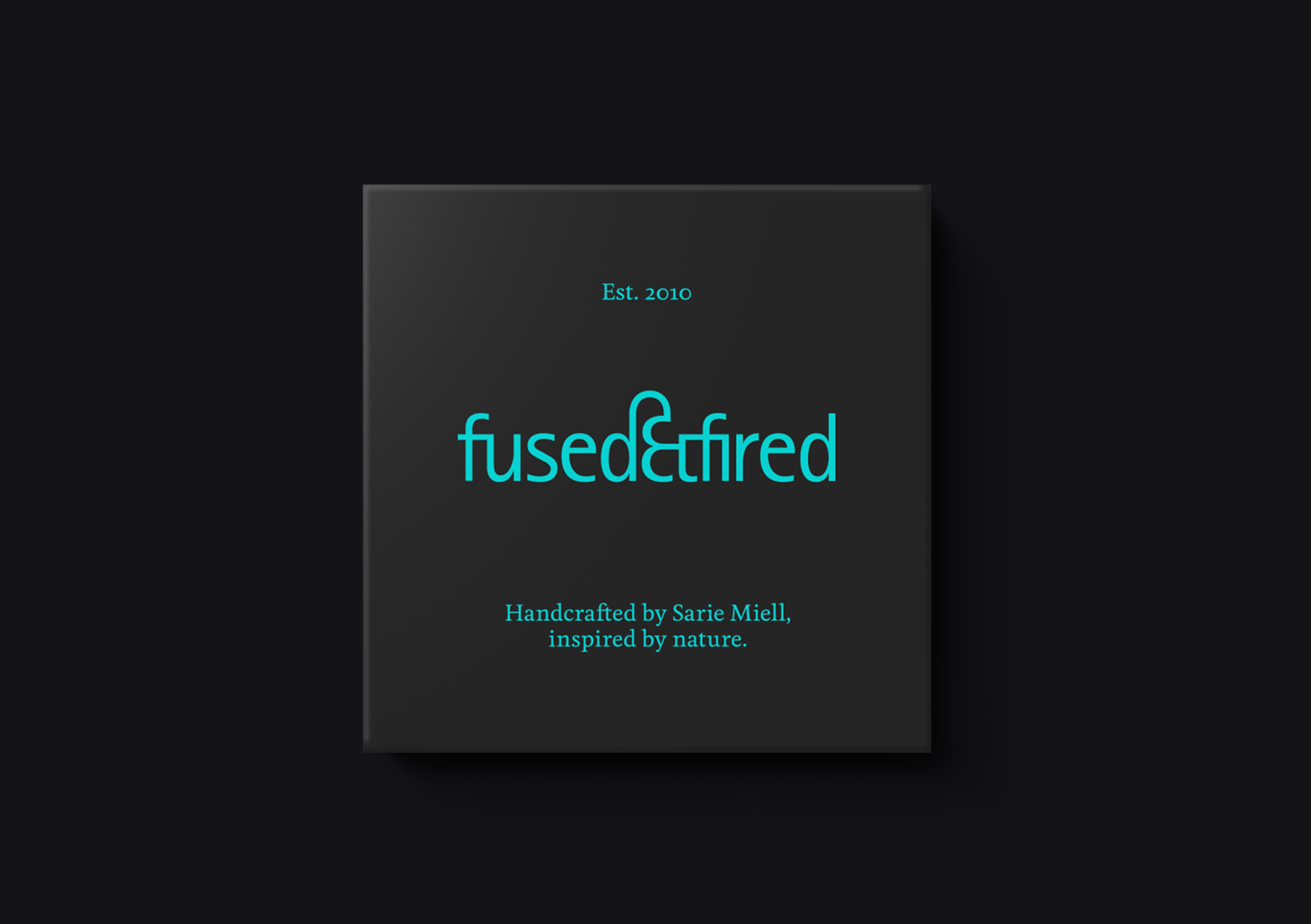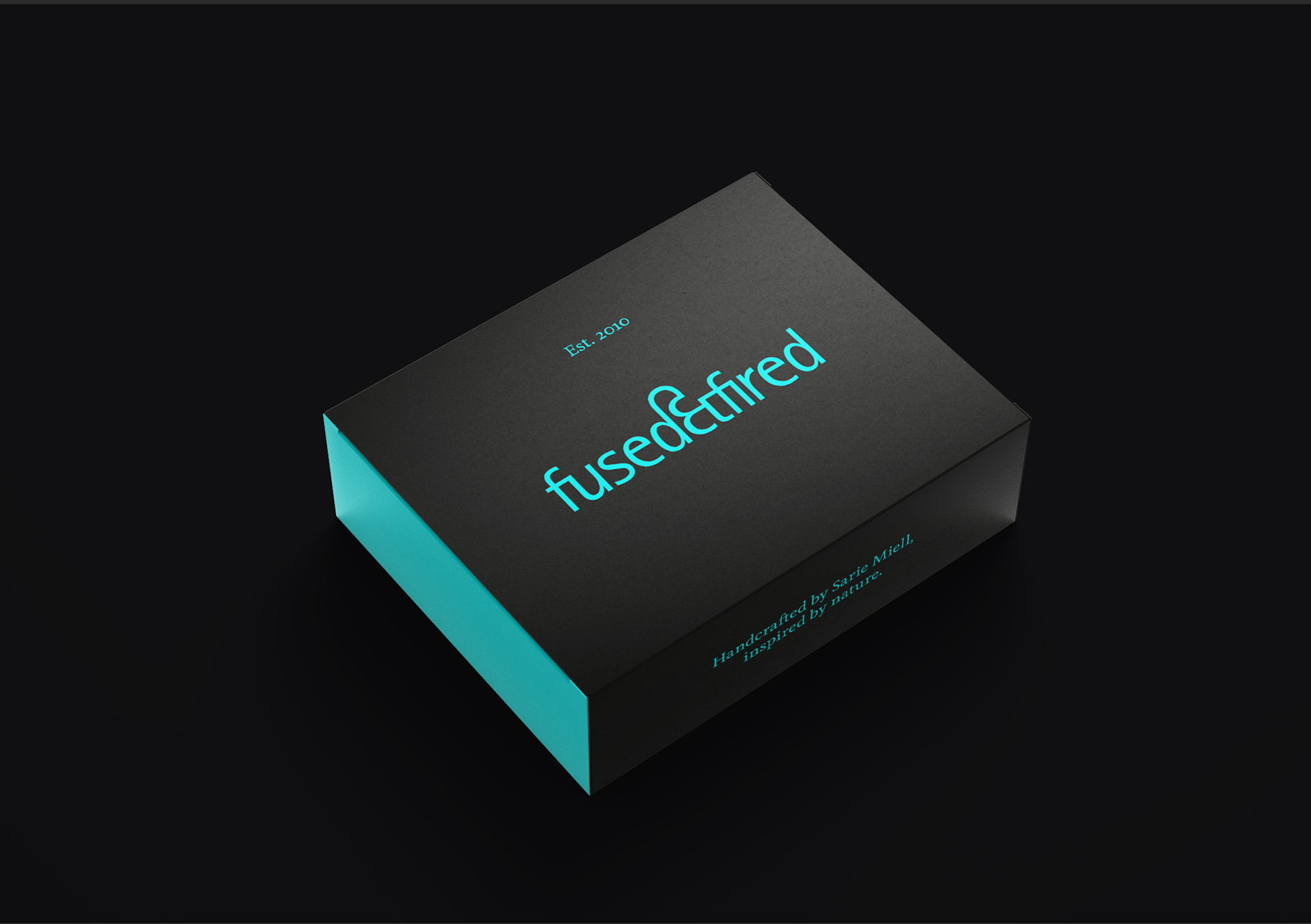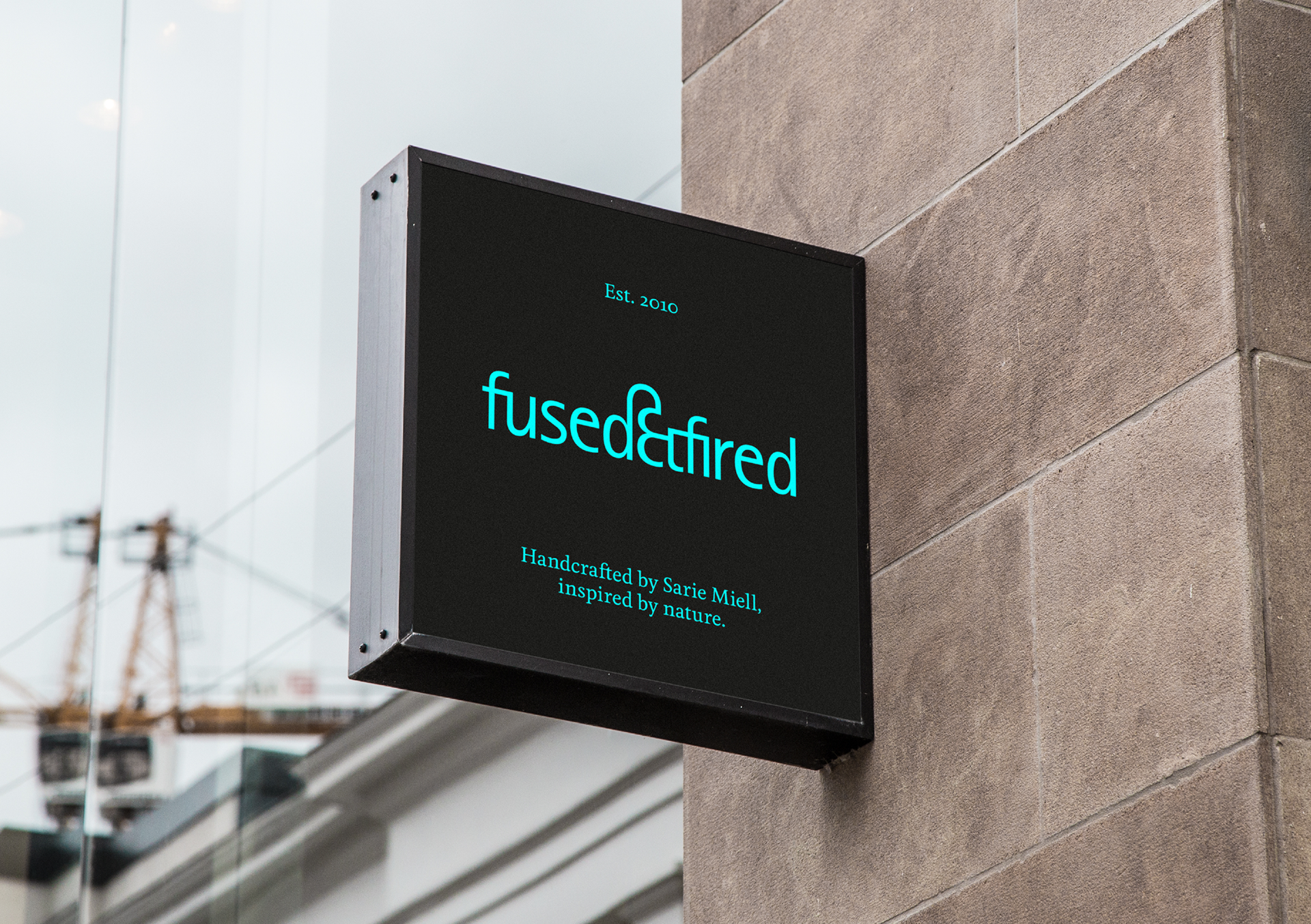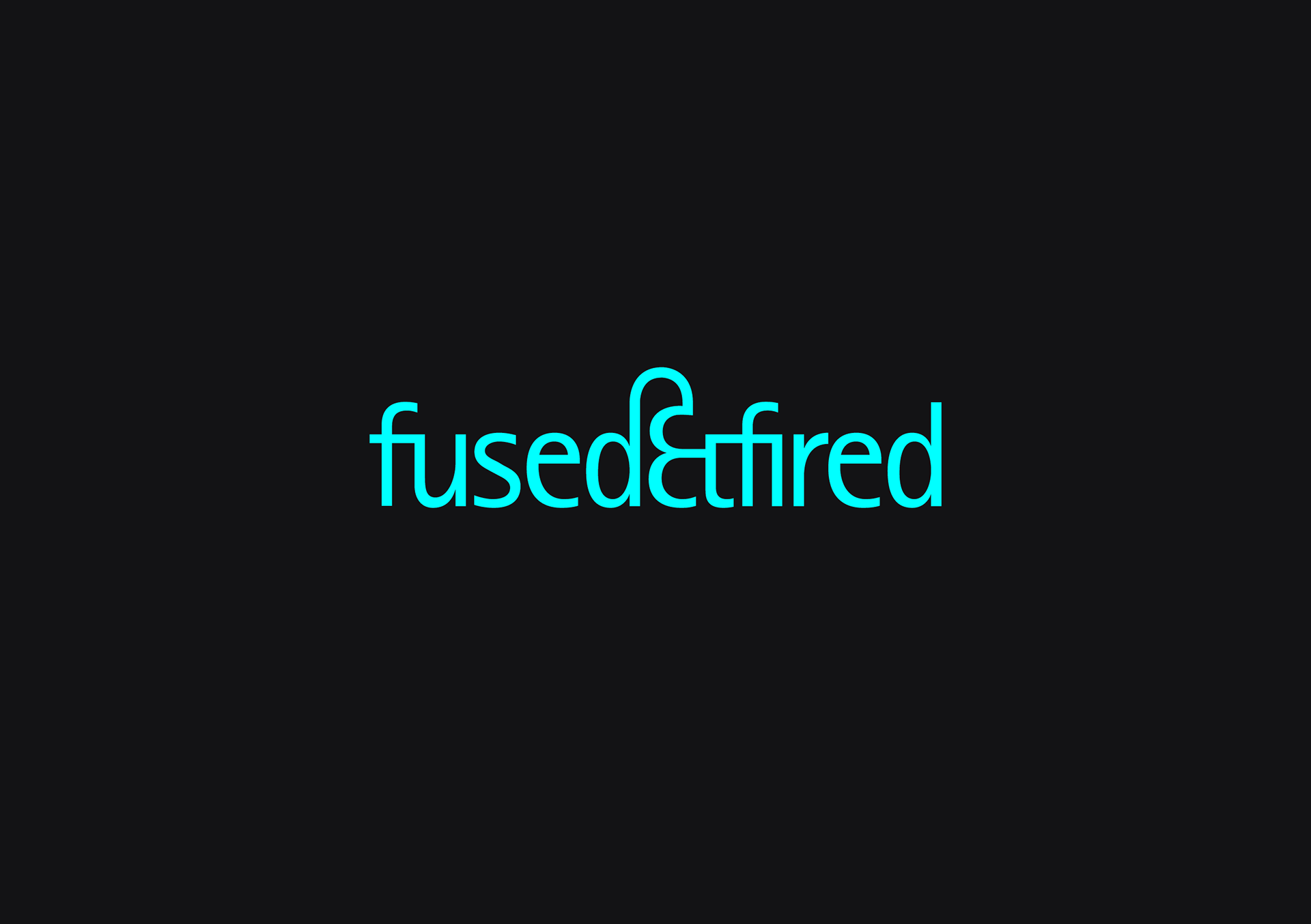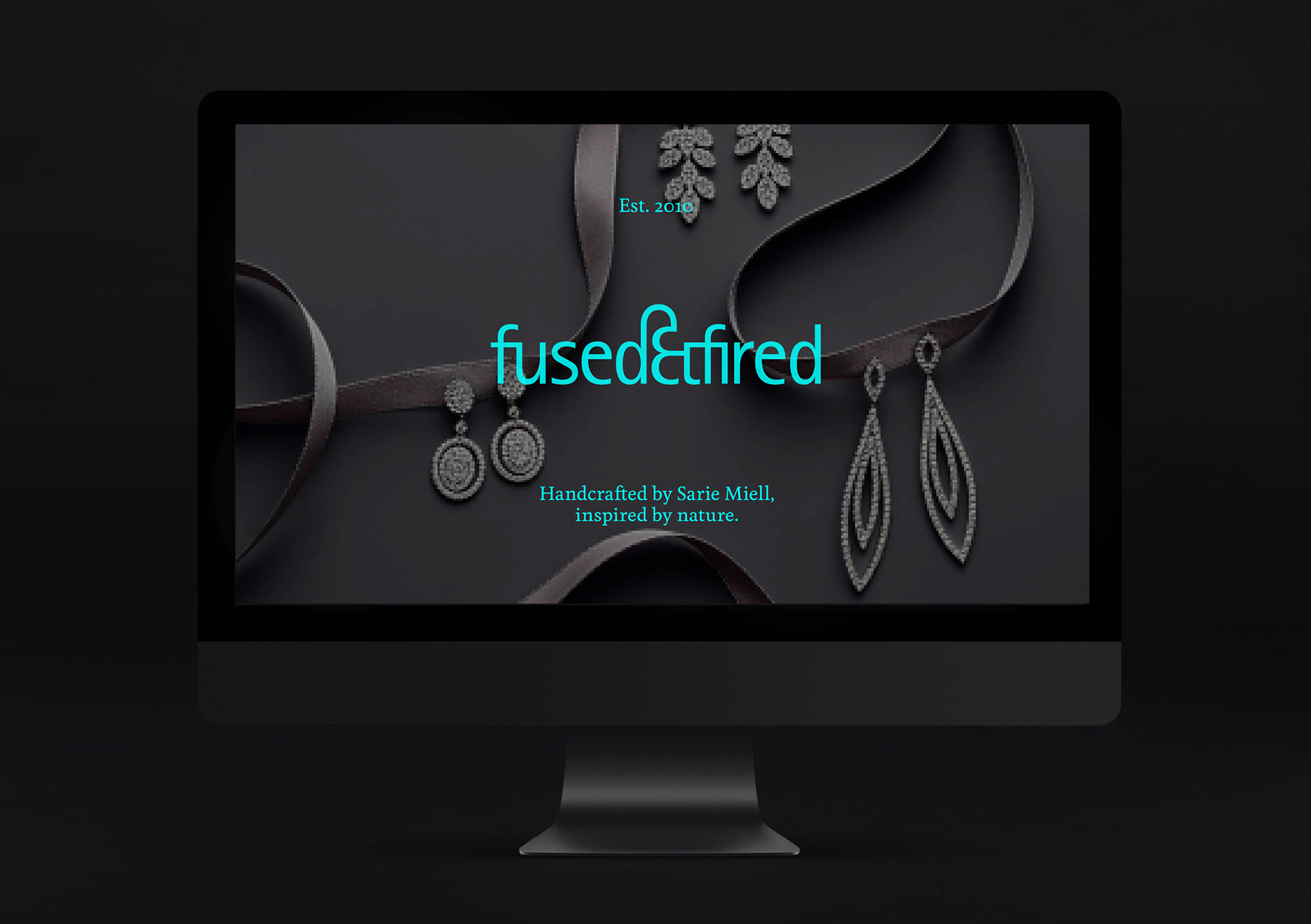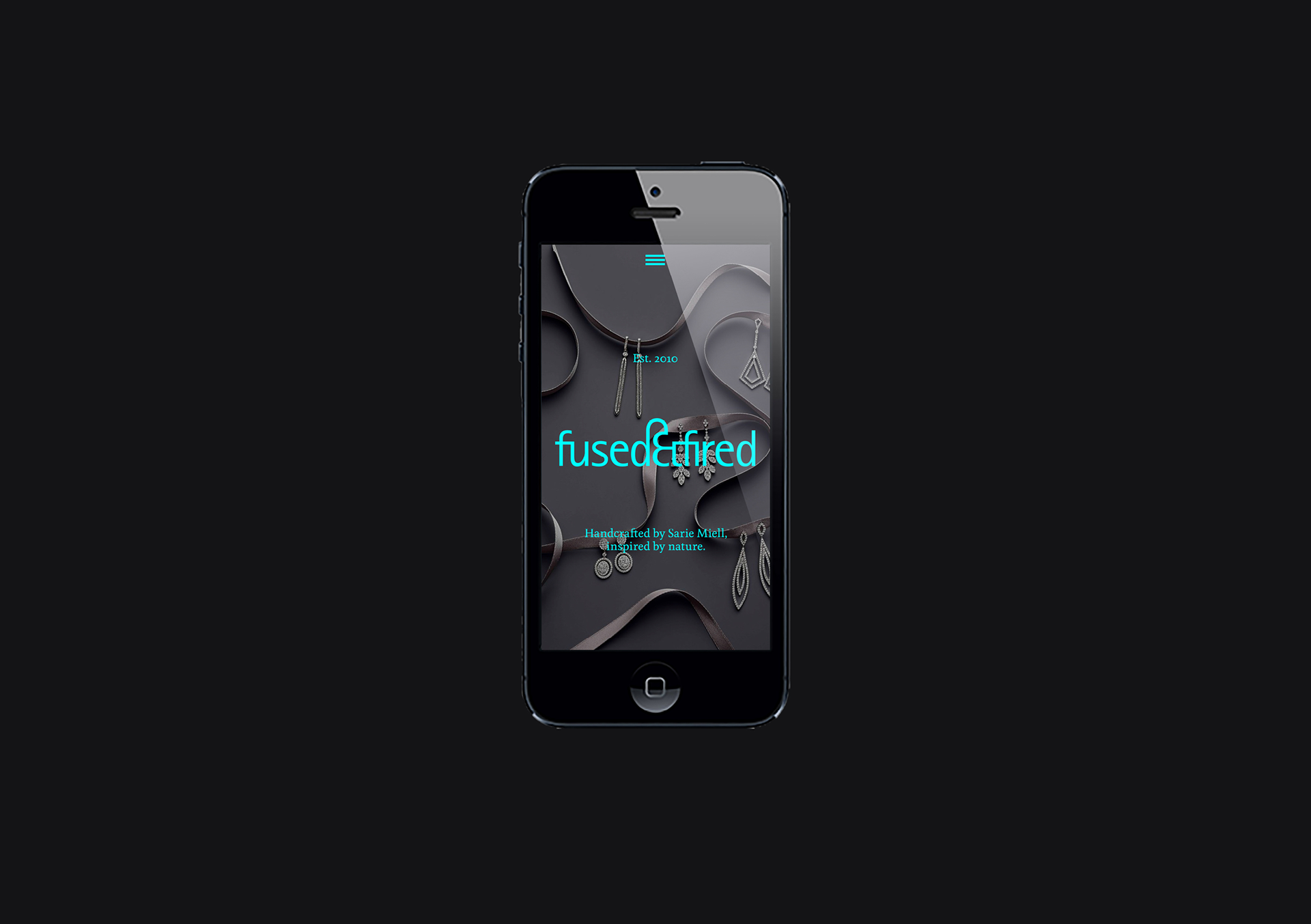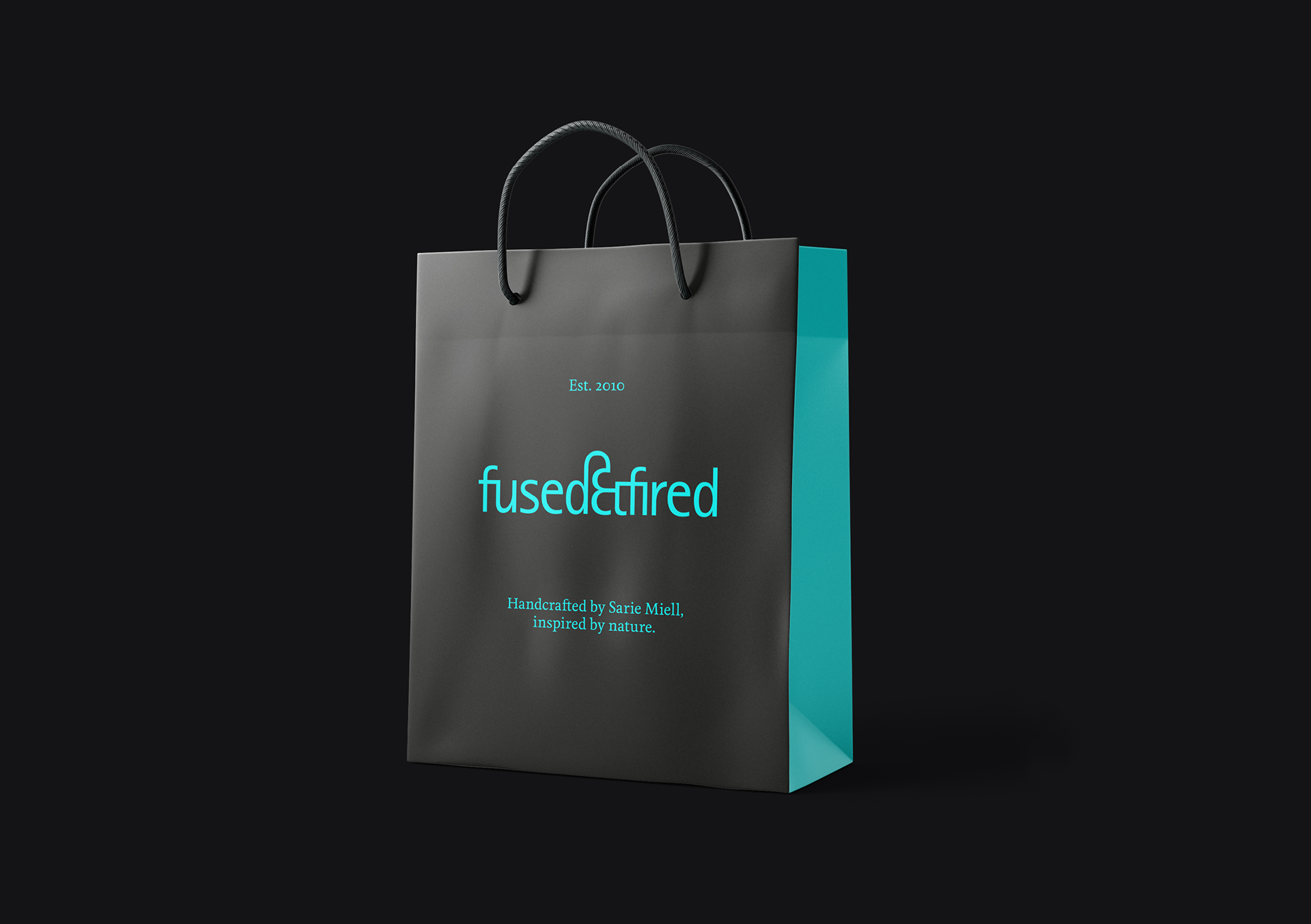
Fused & Fired
Originally, the designer and creator, Sarie Miell, used a firing process to create
her range of dichroic glass jewellery. The mark uses Rotis Sans which was chosen for its unusual ampersand, It was redrawn to create a fluid yet solid mark. The identity also uses a simple colour palette to show case the jewellery in its best light. Since its launch, Sarie has expanded her range to incorporate other precious metals and techniques and is now sold in numerous outlets around
the country.